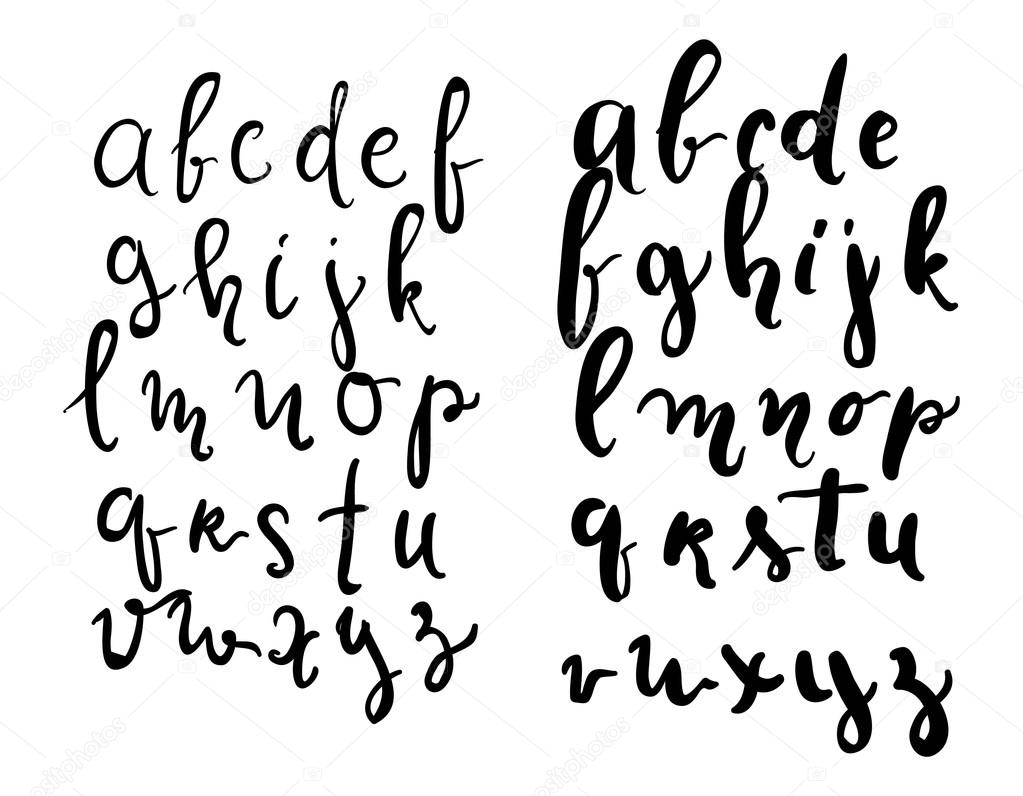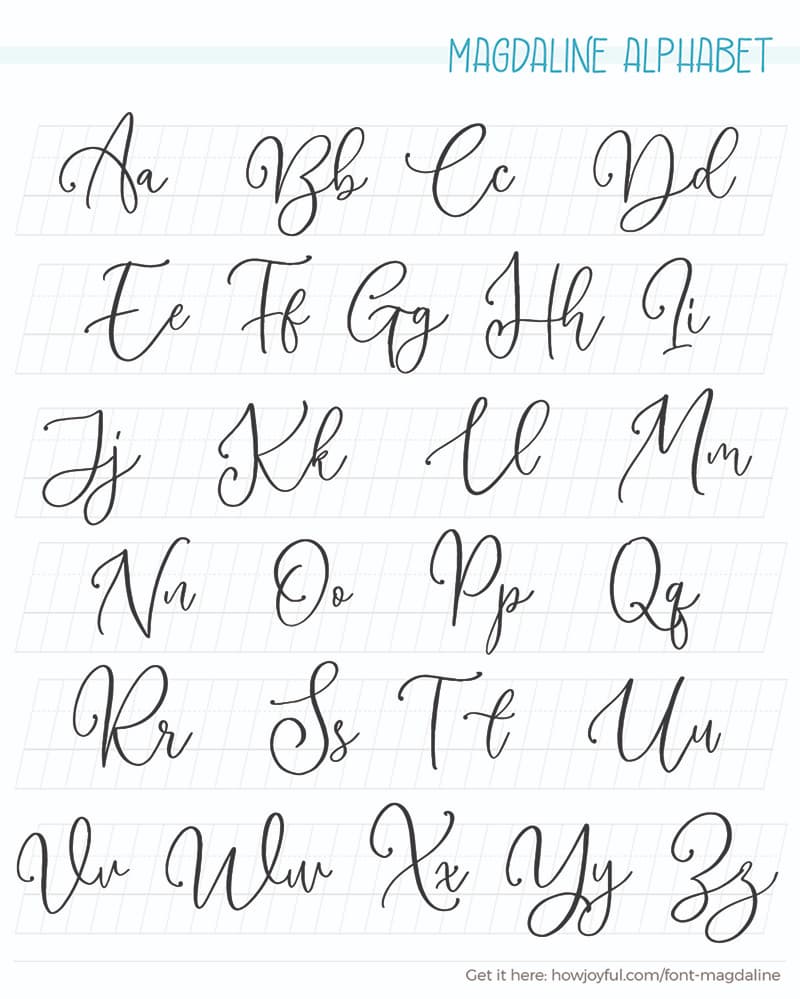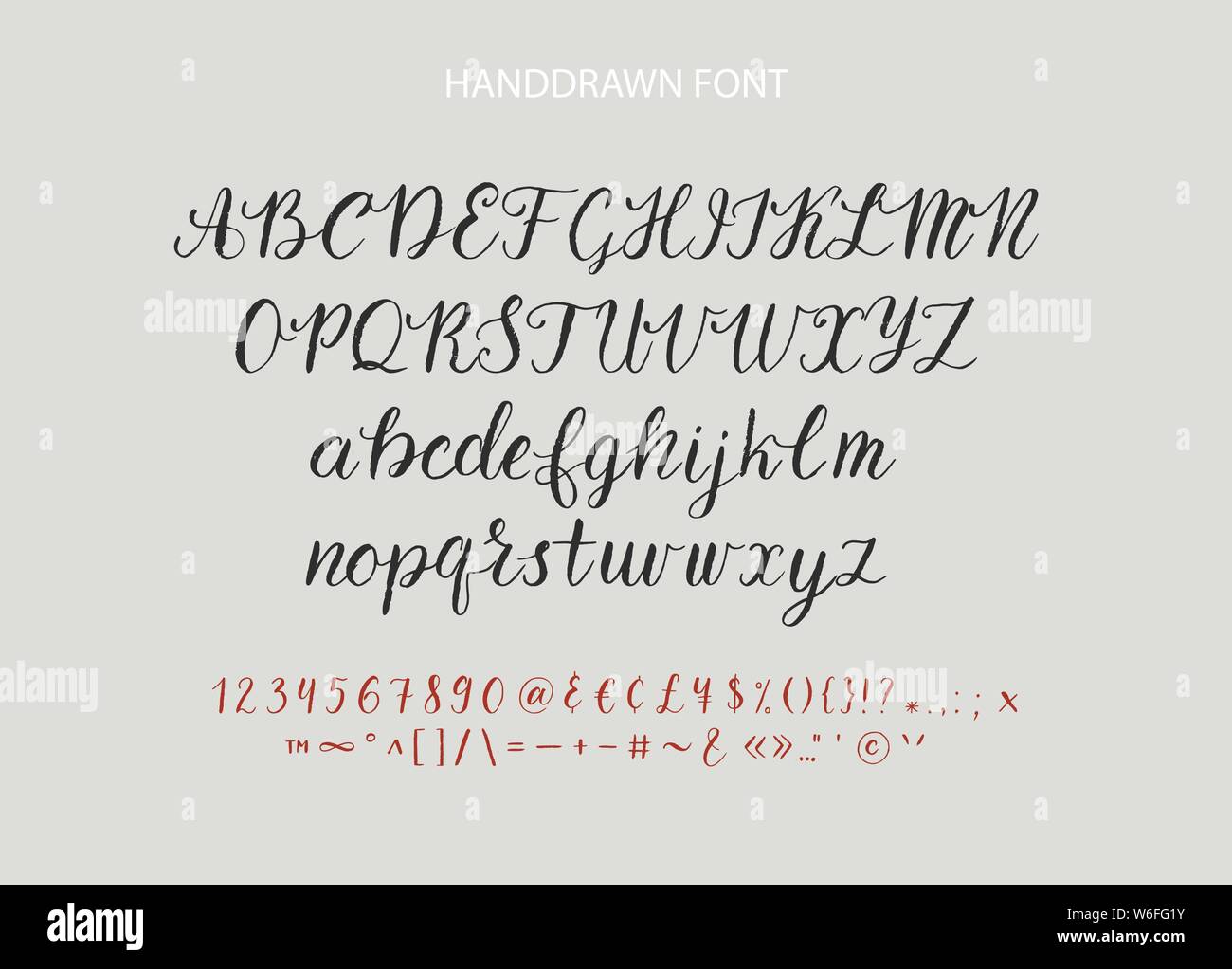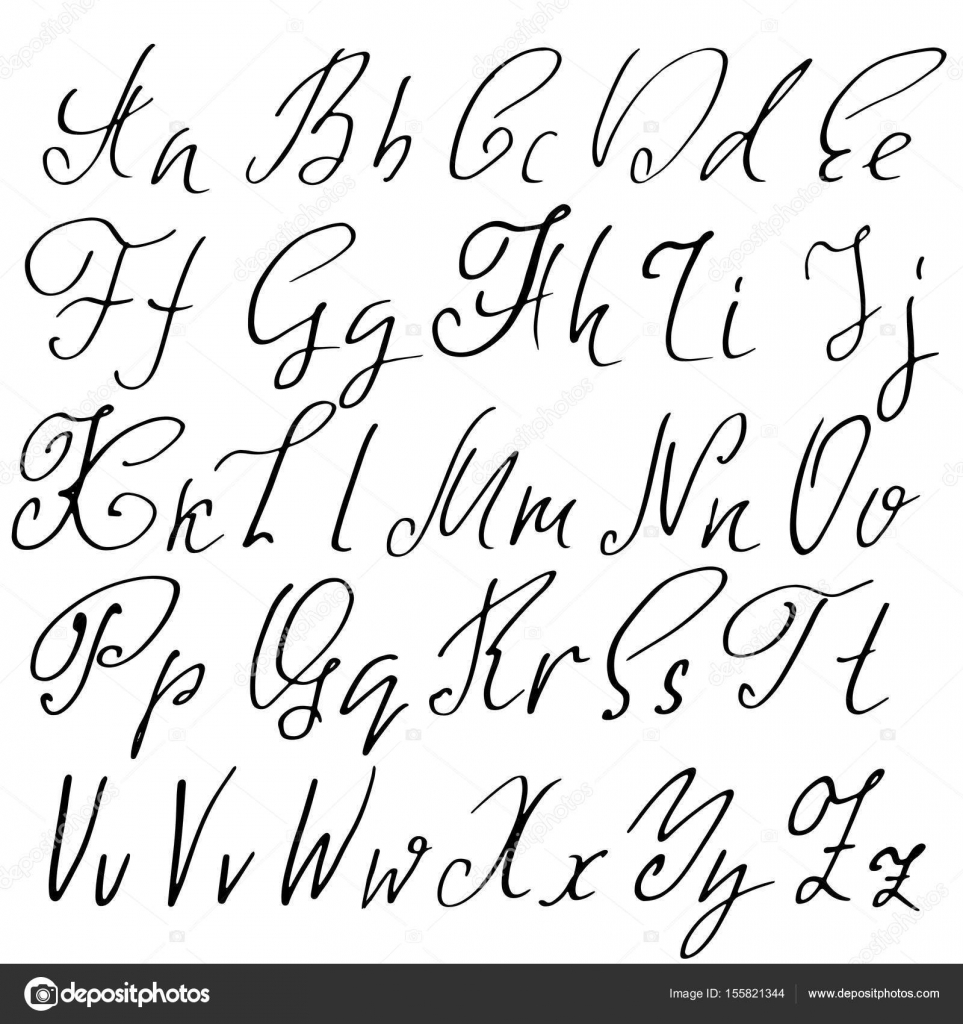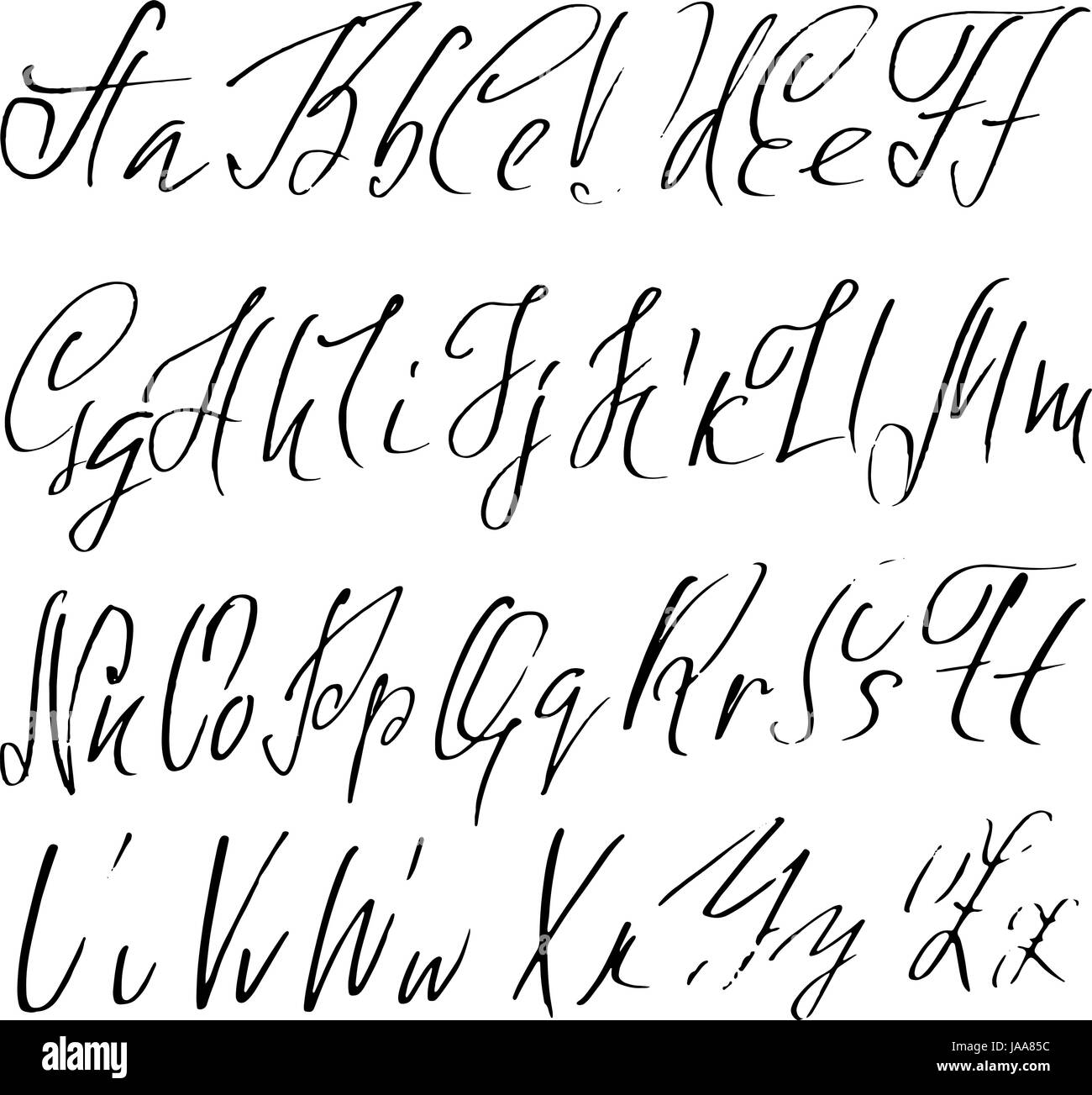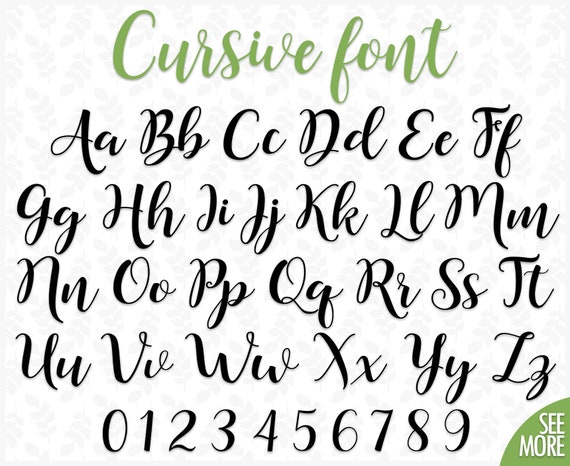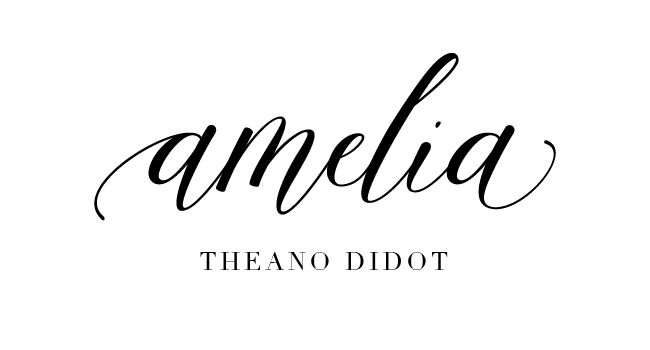
Hand lettering allows you to use any pen.
Hand lettering font styles. We also provide delightful beautifully crafted icons for common actions and items. Content updated daily for hand written font. Amatic Sc is a dainty handwritten style font featuring slight tilts and curves.
You may download the font here. Brush lettering definitely is part of hand lettering but it makes use of special pens brush pens to create strokes with different widths. 13 font styles from 2900.
We have created it with an imperfect flow that will give your text a unique natural look. Writing fonts include both printing and cursive styles and is less artistic than formal calligraphy. In fact they have a wide range of handwriting font styles from serif to script to calligraphy.
Not a lot of people know that Google Docs have a lot of fonts that look like handwriting. 2 font styles from 100. There is a beautiful new block letter style with shading.
Its one of my favorite styles of lettering. Free SoulMarker Handwriting Font is a playful handwriting style. Use it in a variety of design software from Photoshop to Illustrator and more.
Download them for use in your digital products for Android iOS and web. This font is in uppercase lowercase and it includes numbers special characters and few symbols. With your pen you will be able to draw monoline letters block letters elegant flourishes and even imitate brush letterings or real calligraphy.
A script font available in two different styles namely Scriptina Regular and Scriptina Alternates Regular Scriptina is designed by Apostrophic Labs. As its name suggests Hasty Tasty looks like a hastily penned down recipe a quickly jotted down note. Some decorative fonts have found their way back into the generator.
Handwriting Fonts Handwriting fonts are written with a pen pencil or marker. Spring Garden à by Supersemar Letter. The font comes in full range of accents so you can use in a multilingual project.
Ad This is the newest place to search delivering top results from across the web. Handwriting fonts are good for logos headers titles notes but not for regular text. Every font is free to download.
Curbside Same Day Delivery Available At Select Locations. Handwriting Fonts in Google Docs. With curved letters and a fancy tone the font is used for cursive writing purposes.
Heart Breath à by vilogsign. A faster switching is therefore also possible. Hasty Tasty created by David Kerkhoff is a typical font in handwriting style.